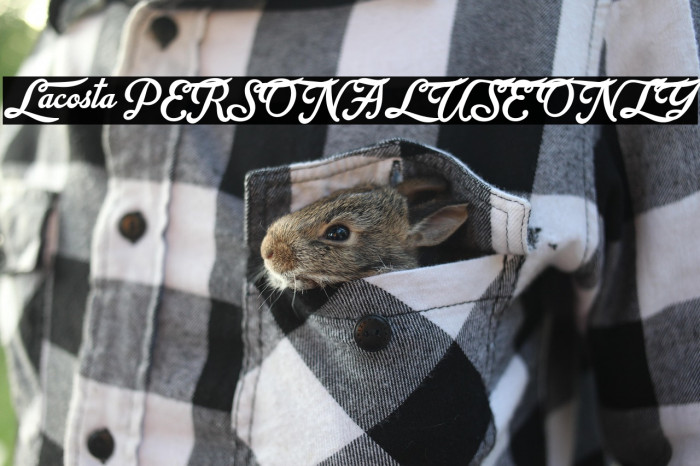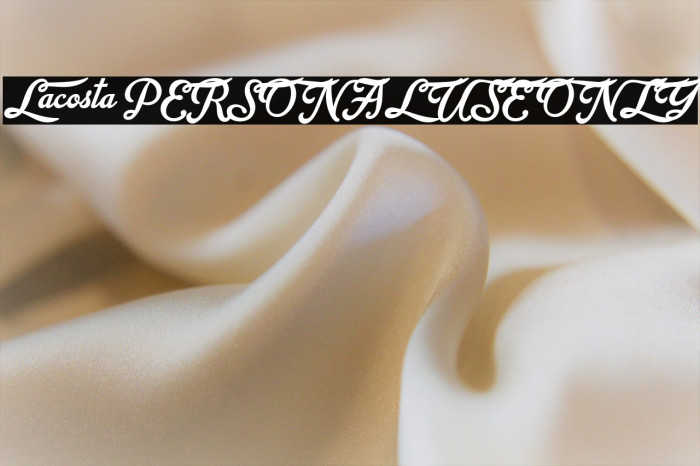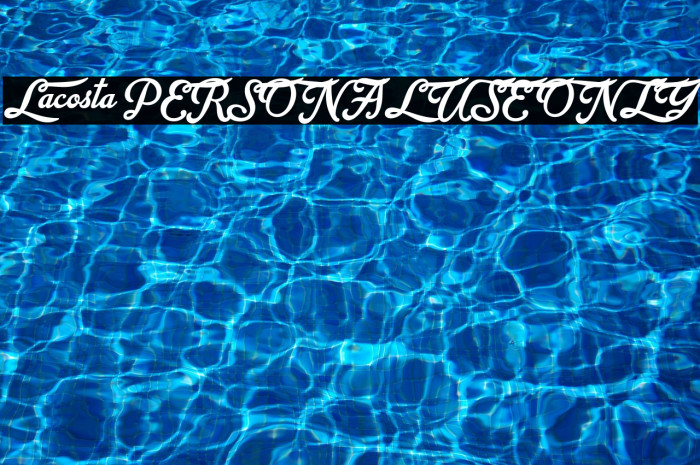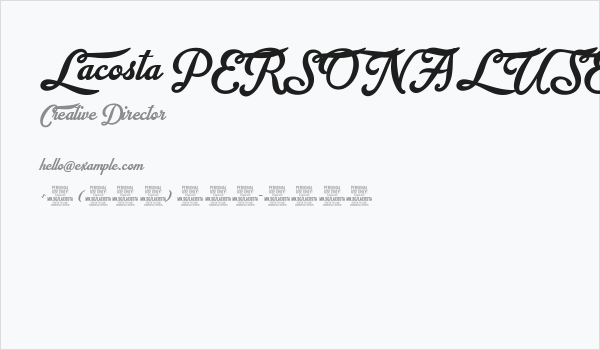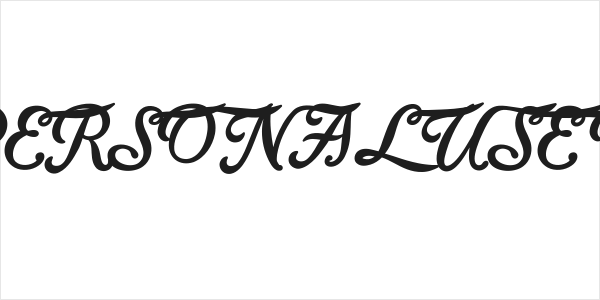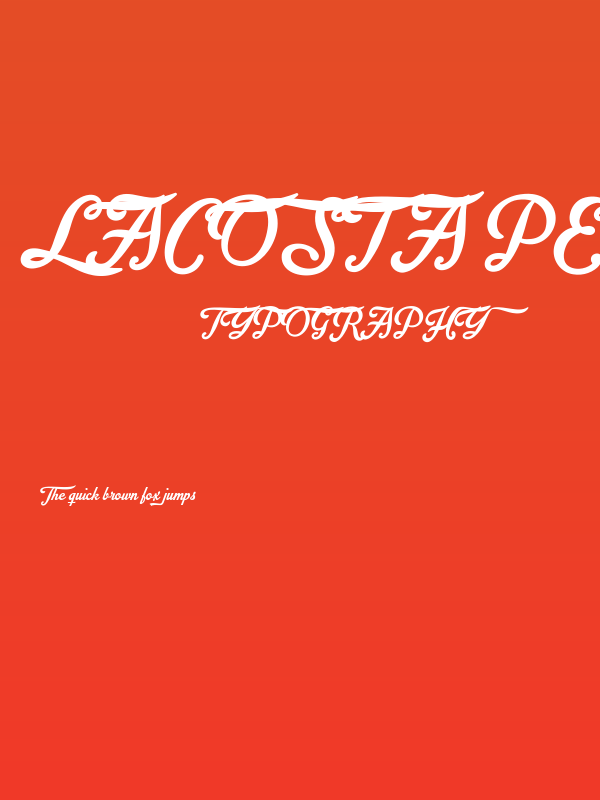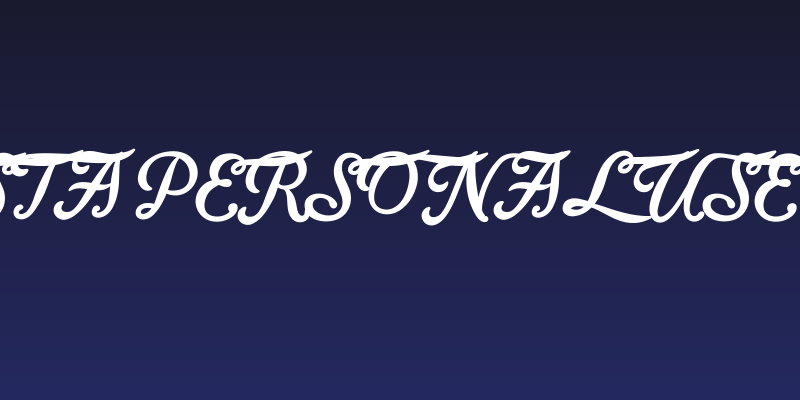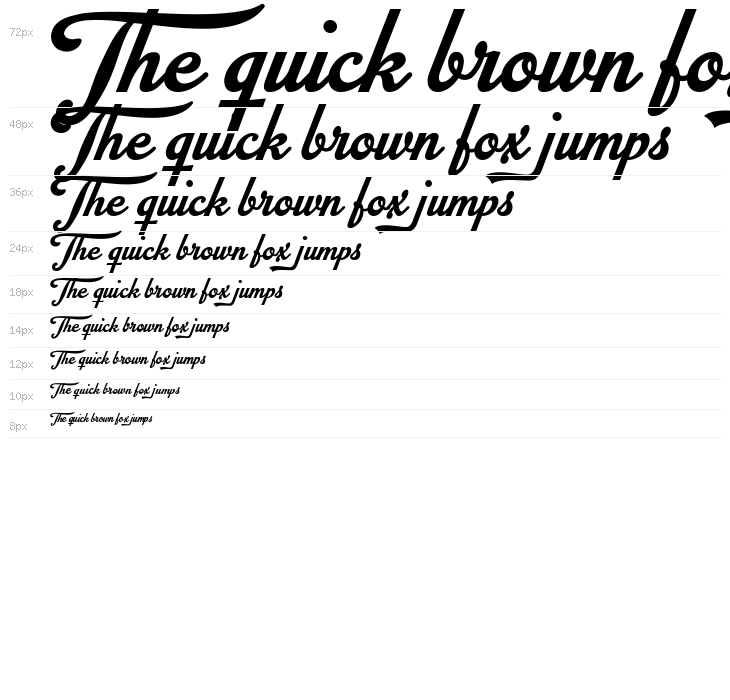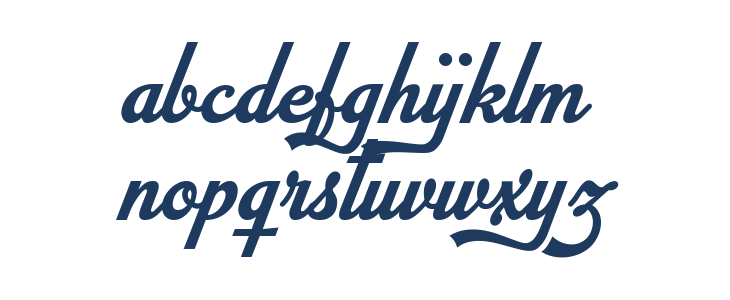
Lacosta PERSONAL USE ONLY Font
Lacosta PERSONAL USE ONLY Description
This font features a dynamic and elegant script style with a flowing, cursive design. The uppercase letters are characterized by their intricate loops and flourishes, giving them a sophisticated and decorative appearance. The lowercase letters maintain a smooth and connected form, enhancing the script's fluidity. The font exhibits a bold weight, providing a strong visual impact, while maintaining a medium contrast in stroke thickness. The character spacing is relatively tight, which contributes to the cohesive and continuous look of the text. This font is ideal for projects that require a touch of elegance and style, such as wedding invitations, branding, and logo design.
Overall StyleElegant
Use CaseLogos, Headlines, Invitations
Proposed ProjectsWedding invitations, branding, logo design, greeting cards, and elegant packaging.